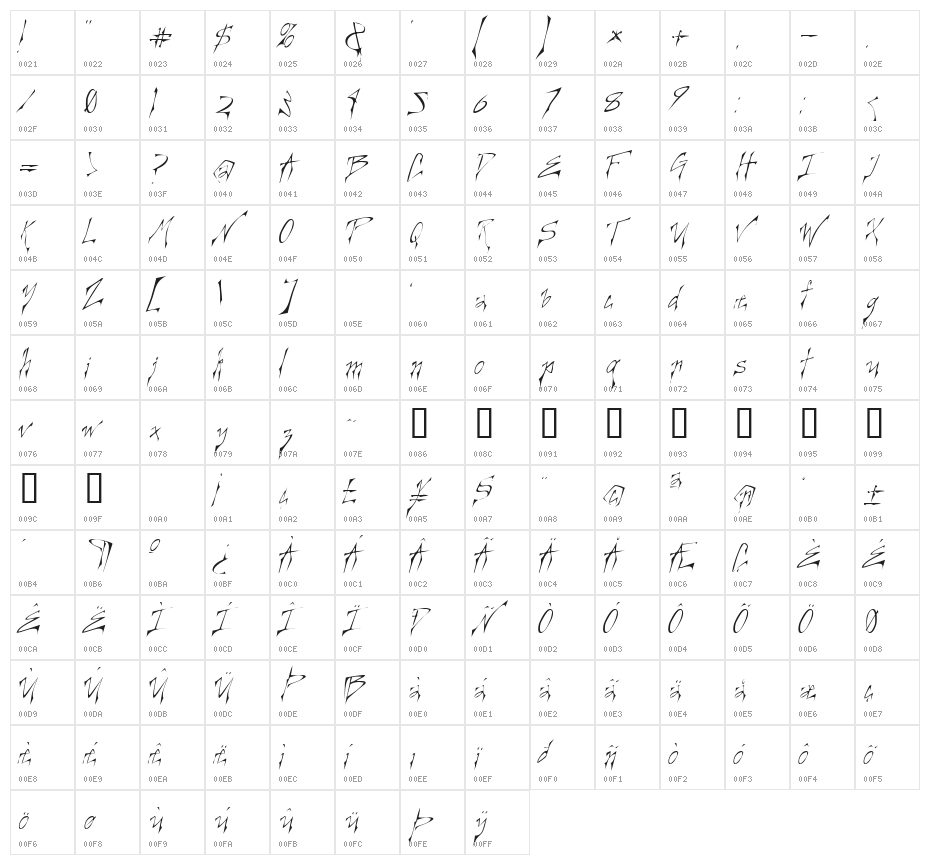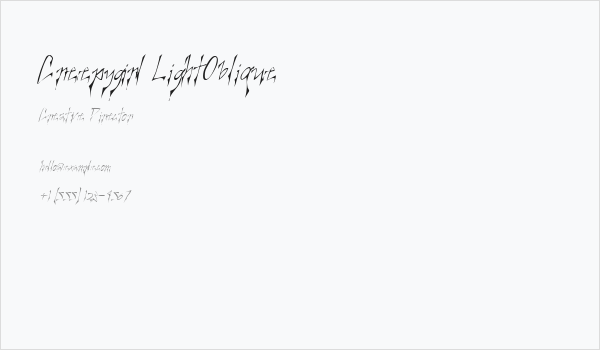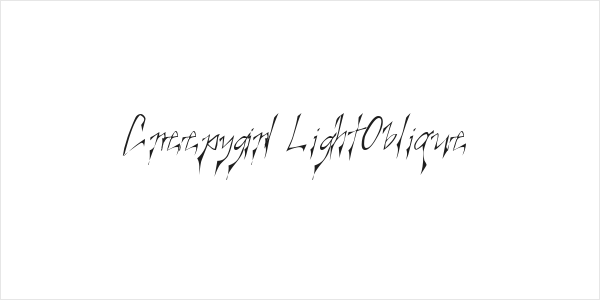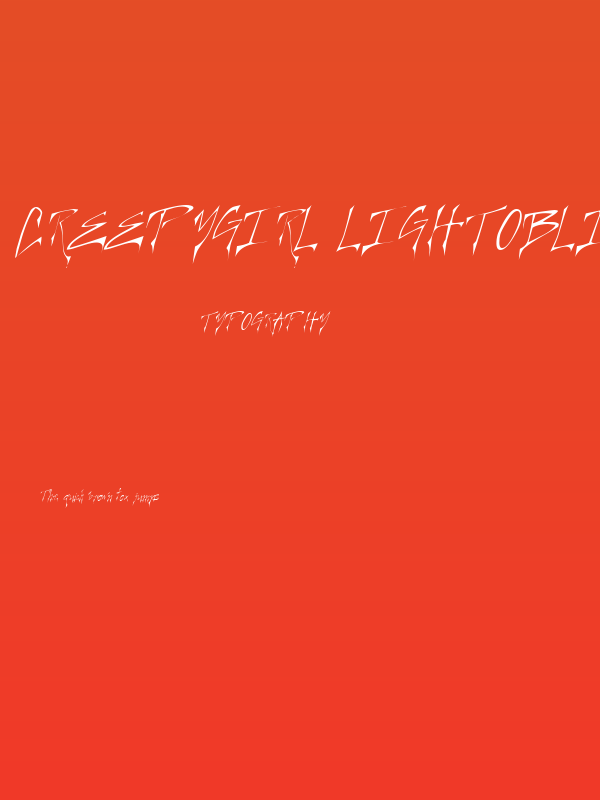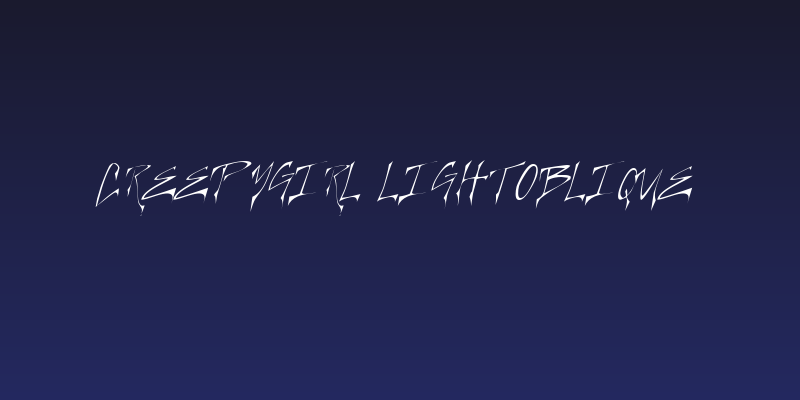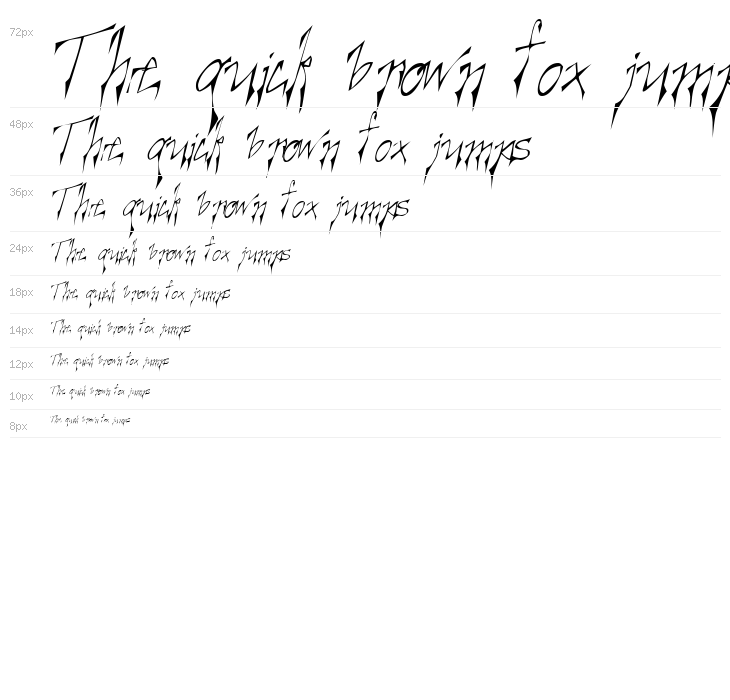
Creepygirl LightOblique Font
Creepygirl LightOblique Description
This font exhibits a unique, edgy style with sharp, angular strokes that give it a distinct, eerie appearance. The letters are elongated and slightly slanted, contributing to a sense of movement and dynamism. The uppercase and lowercase characters maintain a consistent design, with pointed edges and varying line thickness that add to its dramatic flair. The numerals and special characters follow the same stylistic approach, ensuring uniformity across the font. Its overall aesthetic is reminiscent of a horror or thriller theme, making it ideal for projects that require a bold, attention-grabbing typeface.
| Proposed Projects | Ideal for horror-themed posters, Halloween invitations, or any project requiring a dramatic, eye-catching typeface. |